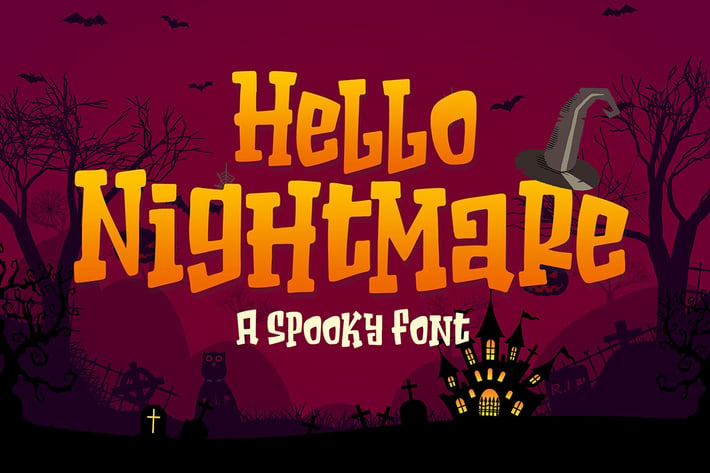
Hello Nightmare a Spooky Font
Introducing of our new product the name is Hello Nightmare a Spooky Font inspired by beauty quirky style this font is a fun theme very good for display, tshirt design, craft, quote sign, logotype and etc